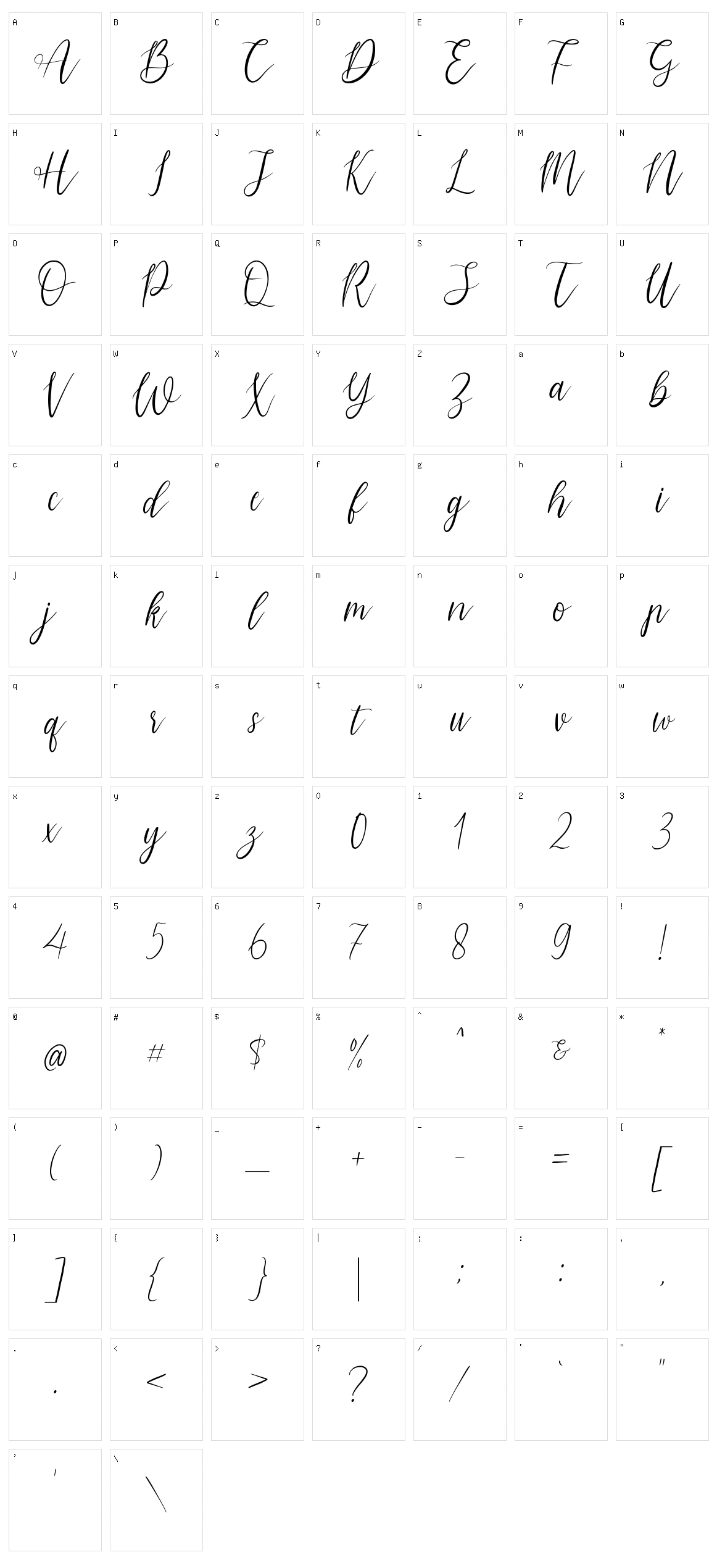
The free font Morpline is carefully designed by Allouse Studio, showcasing a thoughtful balance of creativity and usability and falls under the Script font style. When you download the ZIP file, it contains only 22.31 KB of font files, making it lightweight and quick to download. Please review the license details below to understand permitted usage and distribution rights. If license information is not available, we recommend using this font for personal projects only or contacting the author directly for commercial usage permissions.